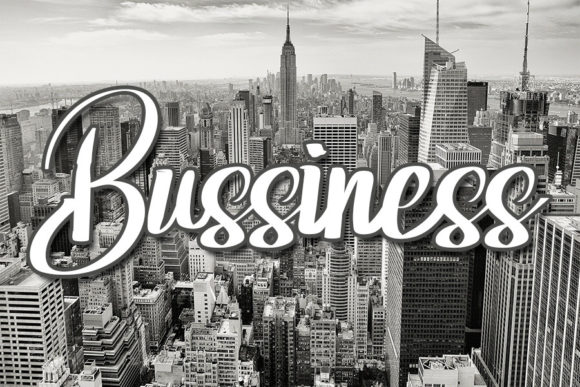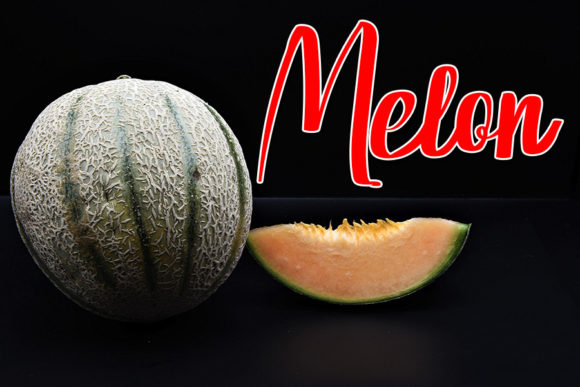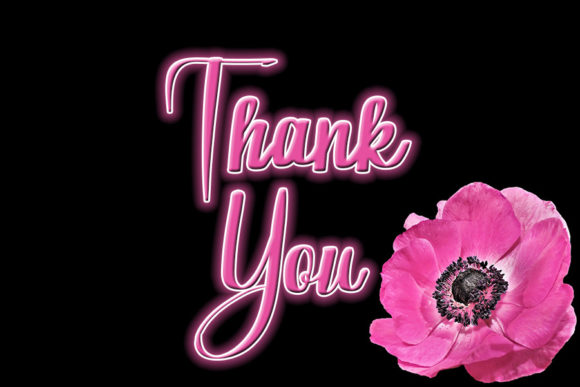
Introducing Bandung Font: Elevate Your Designs with a Stylish Handwritten Touch
In the realm of typography, a font can make or break the visual appeal of a design. For those seeking a bold, confident, and dynamic look, the Bandung Font is an exceptional choice. Crafted with meticulous attention to detail, this gorgeous handwritten font is designed to infuse your headlines and logotype projects with a stylish touch that’s hard to ignore.
The Essence of Bandung Font
Bandung Font stands out with its strong, confident, and dynamic character. This bold handwritten font is not just a typographical element; it’s a statement piece that can transform your designs. Whether you’re working on a logo, a headline, or any project that demands attention, Bandung Font brings a level of sophistication and elegance that’s unmatched.
Adding Nostalgic Character to Your Designs
One of the unique qualities of Bandung Font is its ability to add tons of nostalgic character to your designs. In an era where digital designs dominate, a well-crafted handwritten font can evoke a sense of warmth and authenticity. Bandung Font taps into this nostalgia, providing a creative link to the past while ensuring your designs feel fresh and contemporary.
Bandung Font’s versatility is another one of its strong suits. Its bold and dynamic nature makes it suitable for a wide range of projects. From branding and logotypes to posters and digital media, this font adapts seamlessly. Designers and crafters can experiment with various design elements, confident that Bandung Font will elevate their work.
Crafting with Bandung Font
For crafters and designers looking to add a personal touch to their projects, Bandung Font offers endless possibilities. Its stylish and confident appearance makes it perfect for:
- Logos and Branding: Create a lasting impression with a bold, memorable logotype.
- Headlines and Titles: Draw attention with dynamic, stylish text that stands out.
- Posters and Flyers: Add a touch of elegance and sophistication to your promotional materials.
- Digital Media: Enhance your social media posts, website headers, and more with a unique, eye-catching font.
Why Choose Bandung Font?
Choosing Bandung Font for your design projects comes with several advantages:
- Uniqueness: Stand out from the crowd with a font that’s both stylish and distinctive.
- Versatility: Use it across various projects, from print to digital media.
- Emotional Connection: Create a nostalgic feel that resonates with your audience.
- Professionalism: Add a level of sophistication and elegance to your designs.
Bandung Font is more than just a typographical element; it’s a design statement. With its bold, confident, and dynamic character, this gorgeous handwritten font is poised to elevate your headlines and logotype projects. By incorporating Bandung Font into your designs, you’re not just choosing a font; you’re embracing a style that speaks to sophistication, nostalgia, and creativity. Whether you’re a seasoned designer or a crafter looking to add a personal touch to your projects, Bandung Font is an exceptional choice that promises to leave a lasting impression.